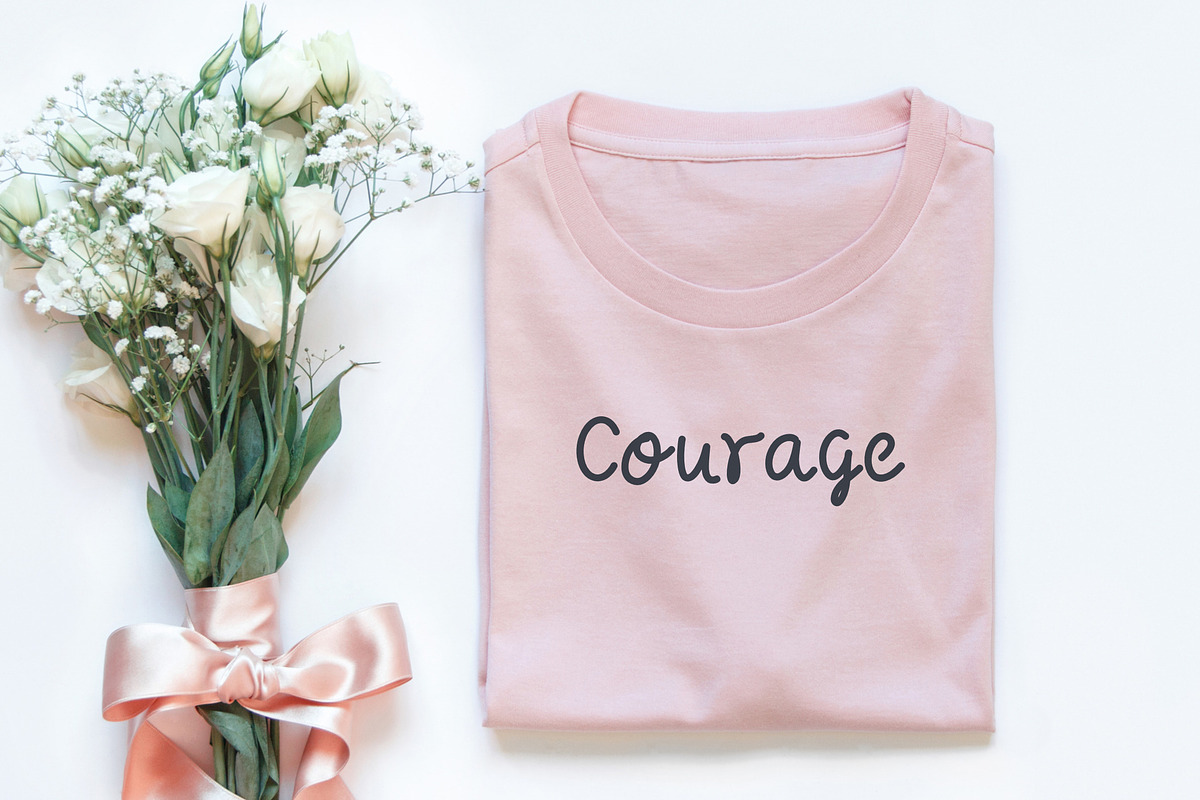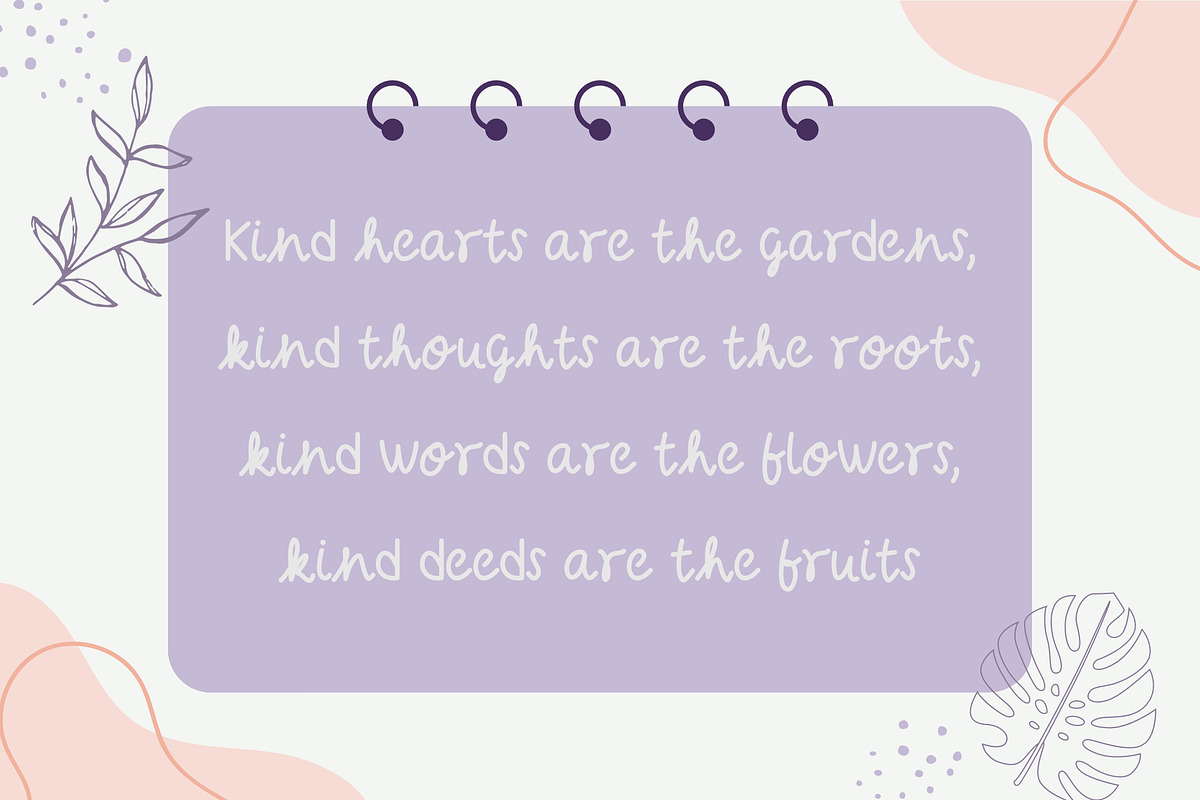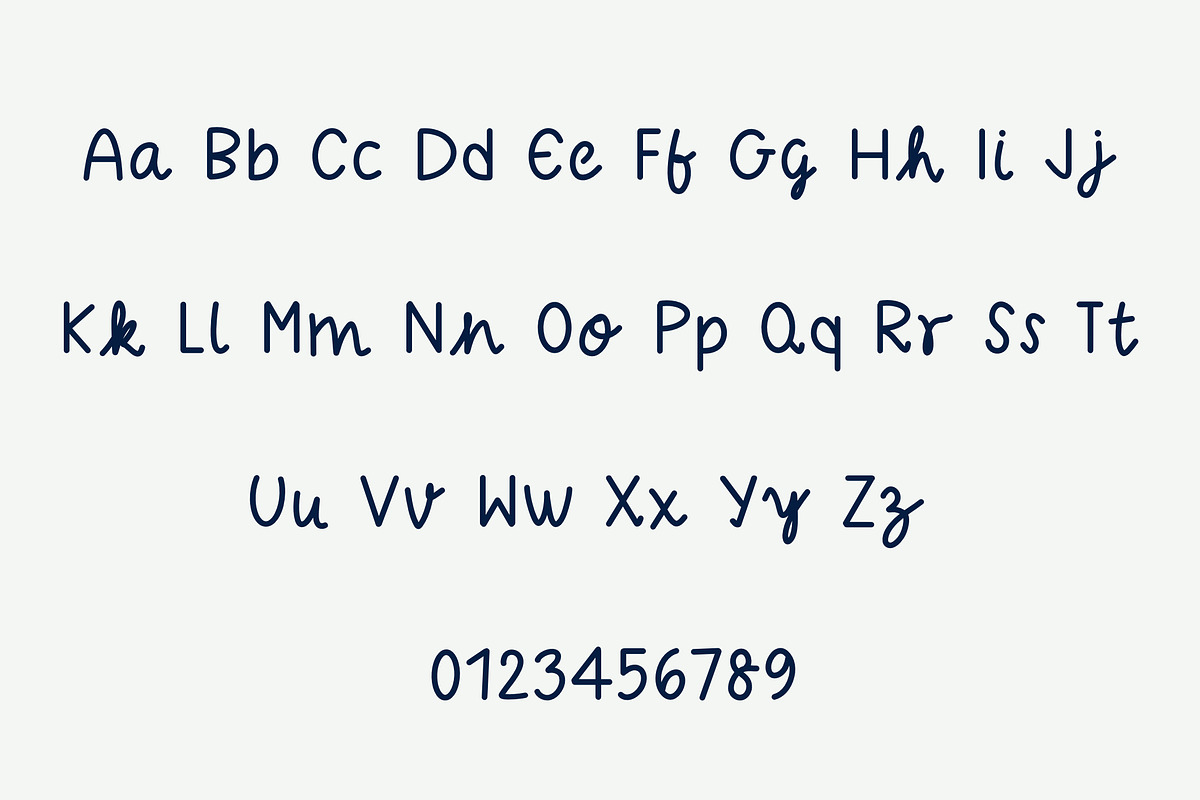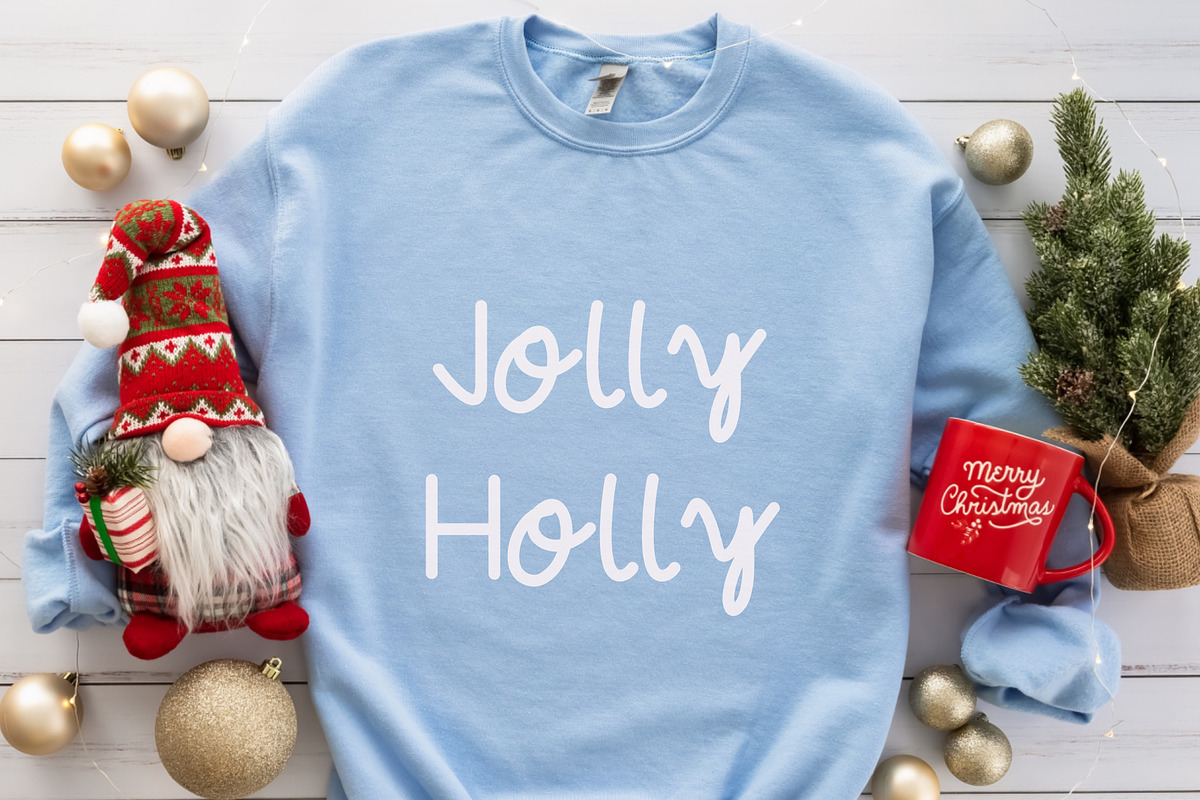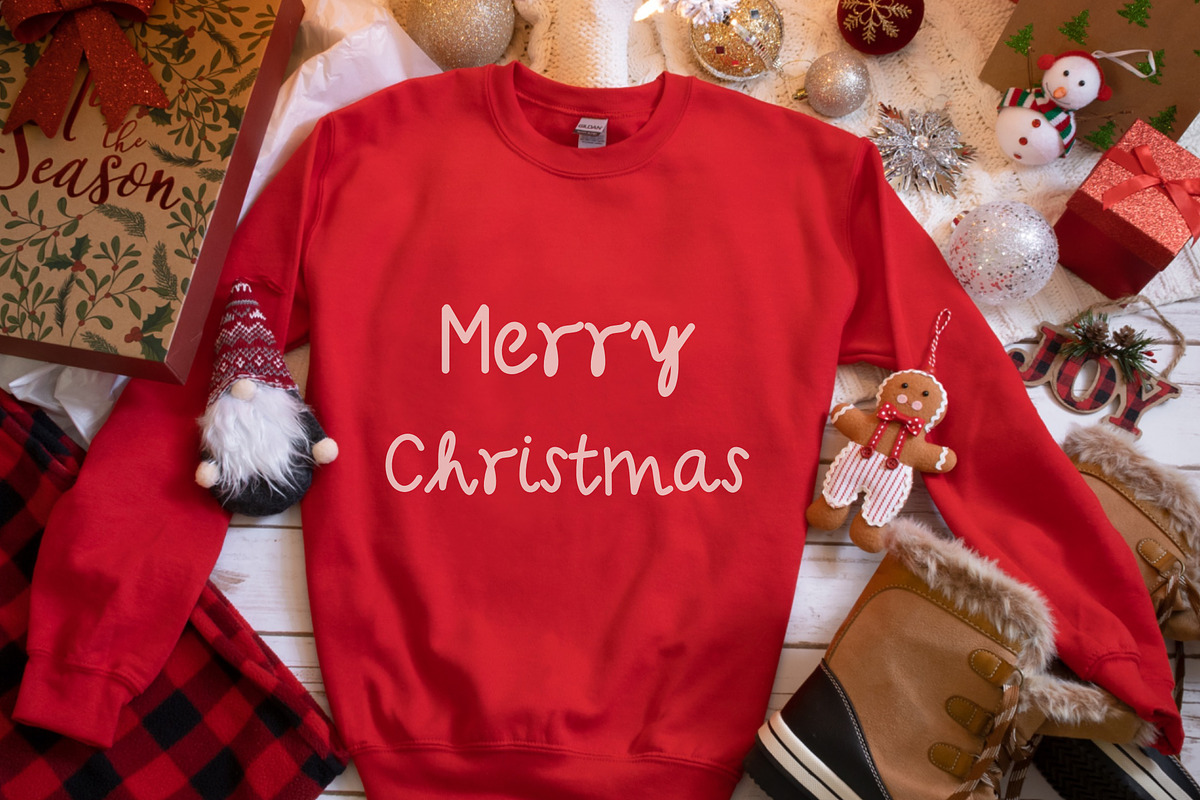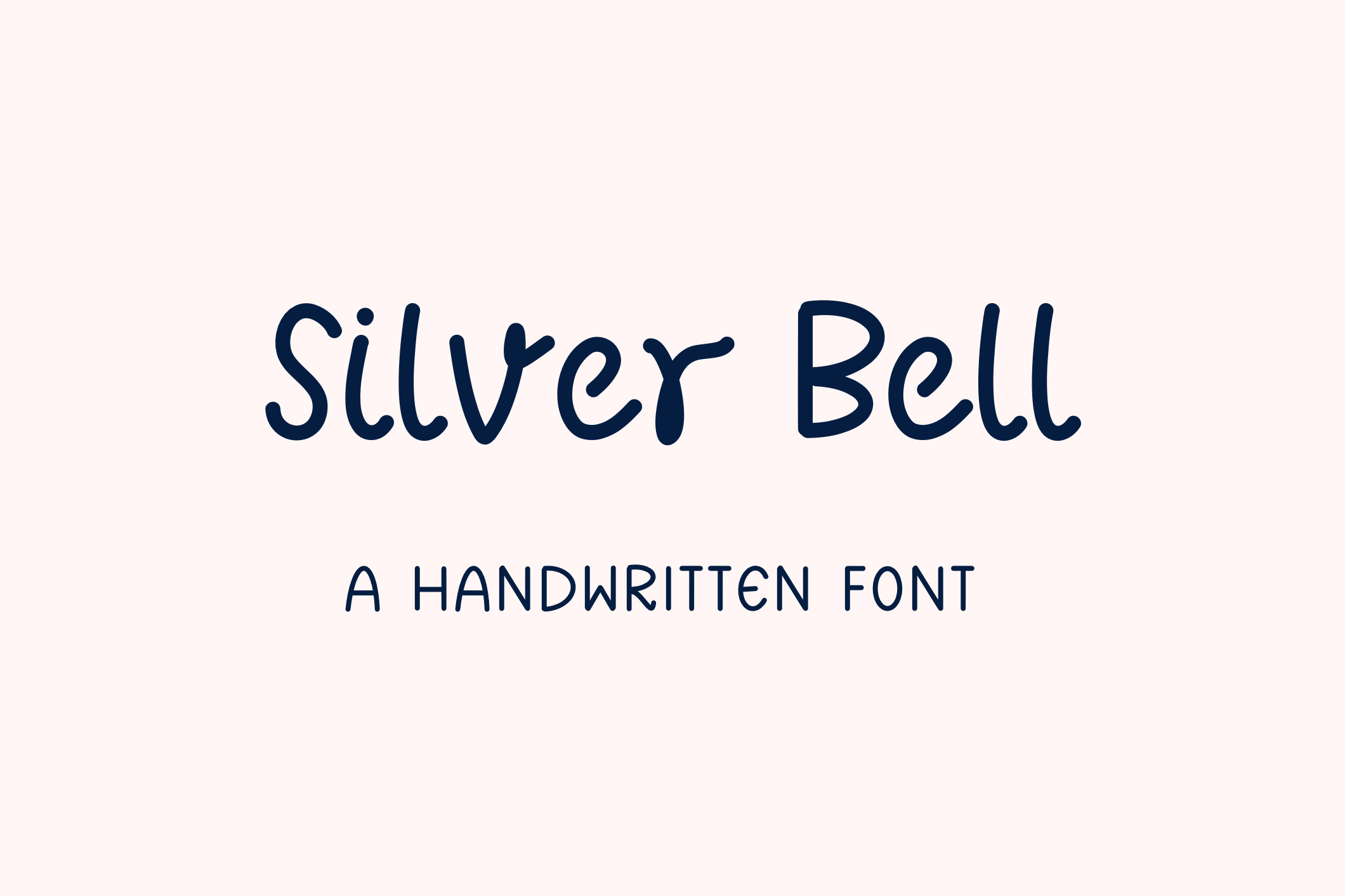
Silver bell- Handwritten font
Silver bell - Handwritten font
Add a touch of warmth and holiday spirit to your projects with our enchanting silver bell - a handwritten font specially crafted for the Christmas season & also good for notes.
🎀 Perfect for: 🎀
Holiday cards and invitations Festive posters and banners Christmas-themed merchandise Social media graphics Gift tags and labels